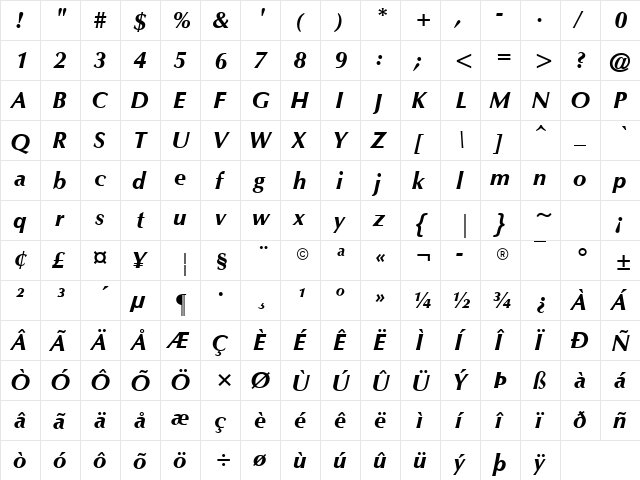
Orion Bold-Italic Regular
Design Context for Orion Bold-Italic Typeface
Orion Bold-Italic offers clean, dependable letterforms without strong stylistic allegiance, making it a practical choice for designers who need flexibility. The dynamic lean of this cut emphasises speed and emphasis in any layout. The heavy weight commands attention and anchors typographic hierarchies.